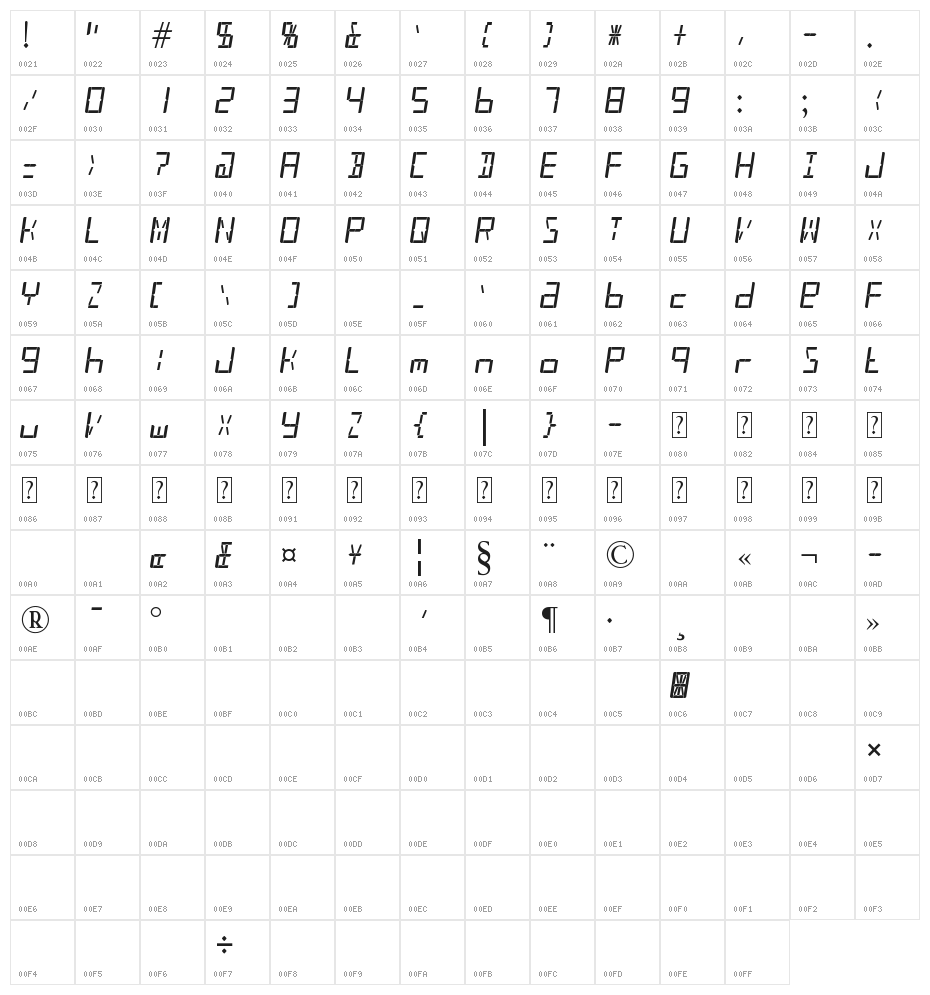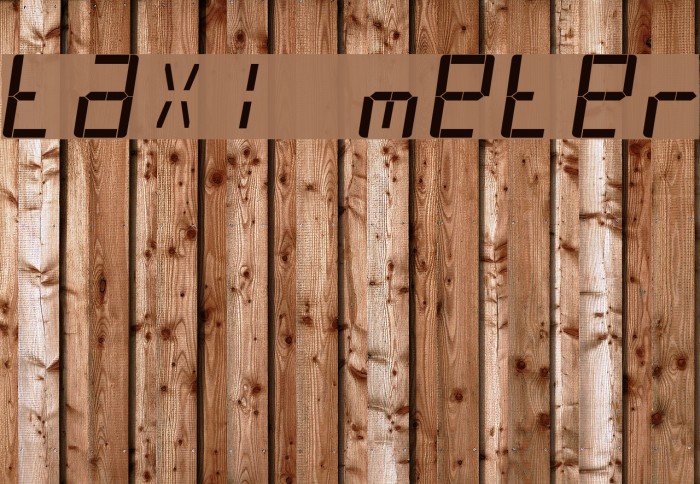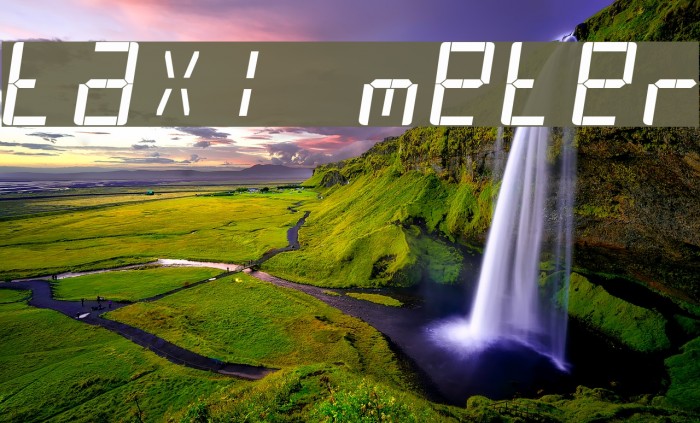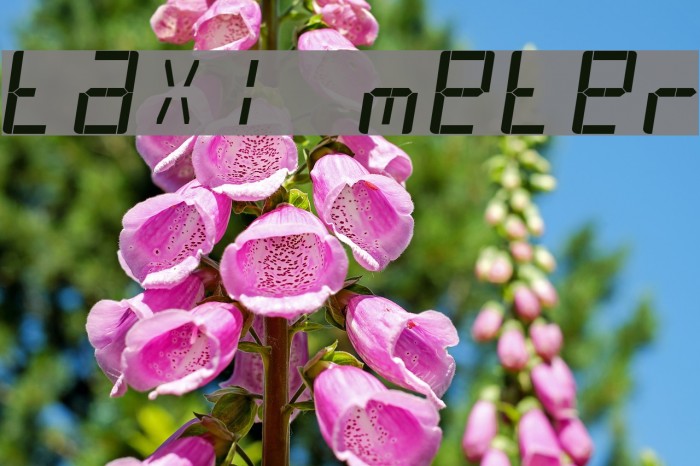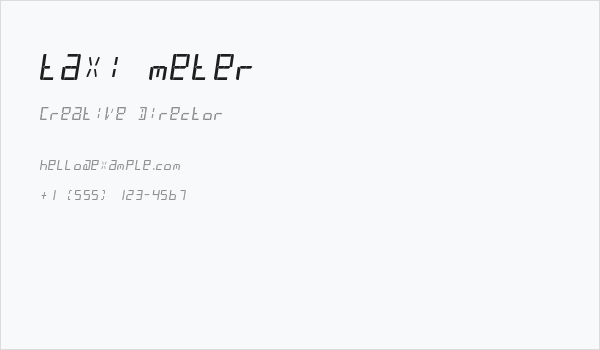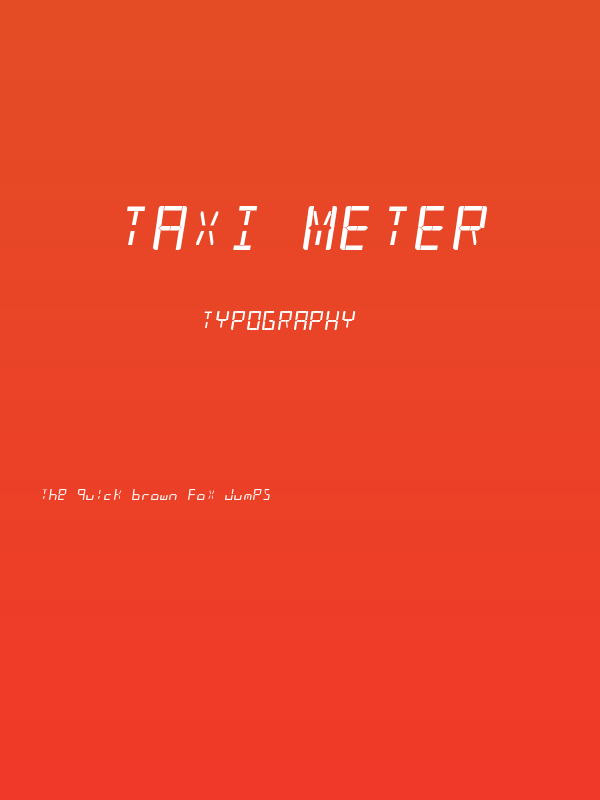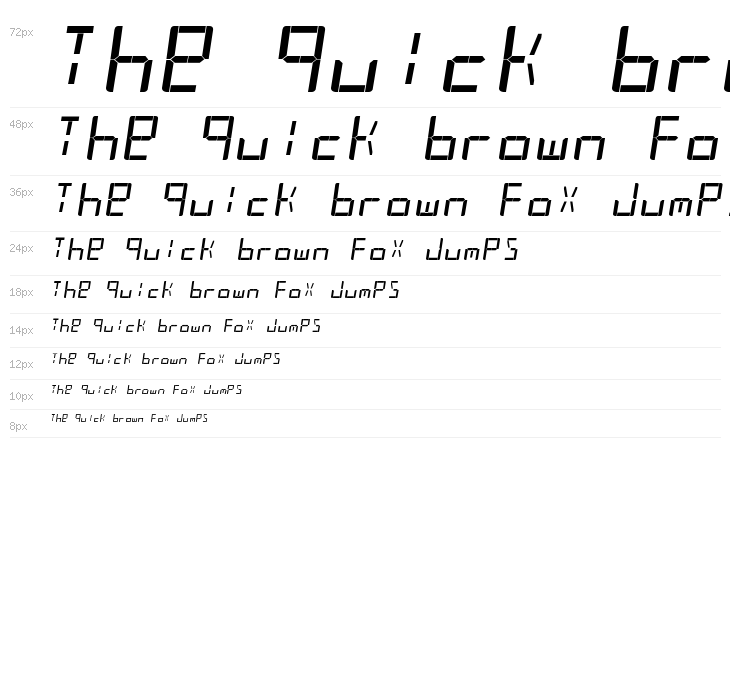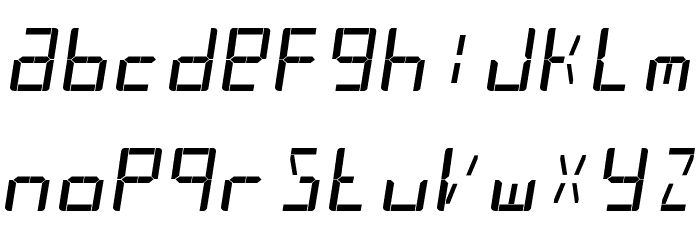
taxi meter Font
taxi meter Description
This font features a digital, segmented style reminiscent of old-school LED displays, often seen in digital clocks and meters. The characters are constructed with straight lines and sharp angles, giving it a geometric and technical appearance. Each letter and number is composed of segments that mimic the look of a seven-segment display, creating a futuristic and mechanical feel. The font maintains a consistent height and width across all characters, ensuring uniformity and balance. Its distinct style is both modern and retro, making it suitable for projects that require a digital or technological aesthetic.
| Use Case | Headlines, Logos, Digital displays |
| Proposed Projects | Ideal for digital interfaces, tech-themed designs, retro-futuristic projects, and any application requiring a digital or mechanical look. |